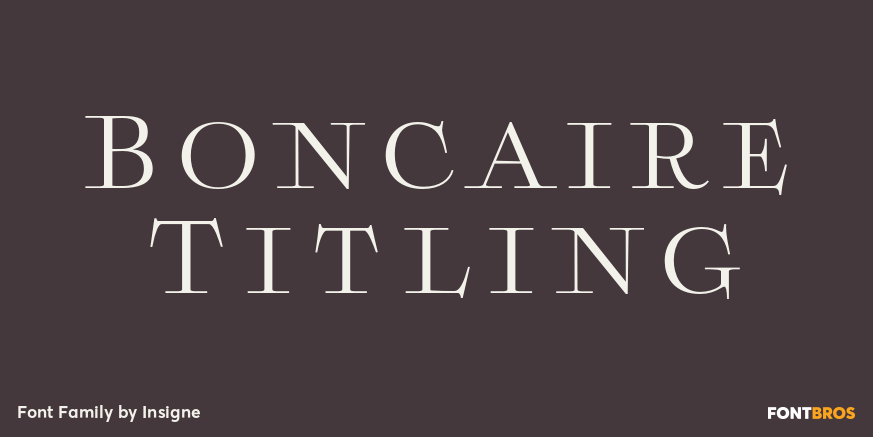
Boncaire Titling
About Boncaire Titling
Inspired by the type elements of 17th century Dutch mapmaking, Boncaire Titling provides you with a historic yet adventurous look for your library. This addition from insigne? found its muse in a map of Curacao by Dutch cartographer Gerard Van Keulen,…